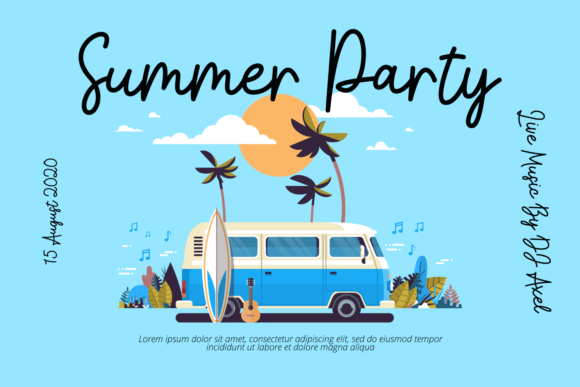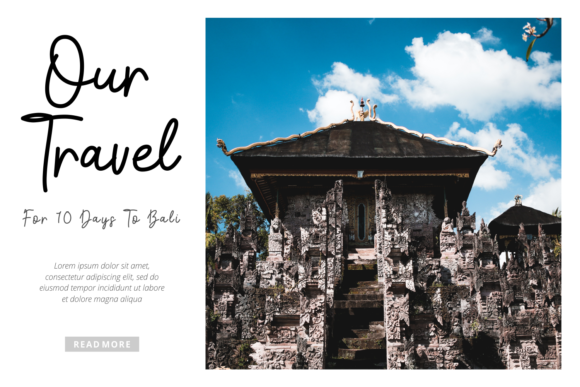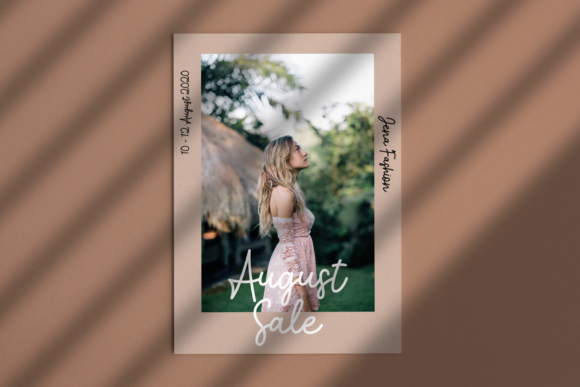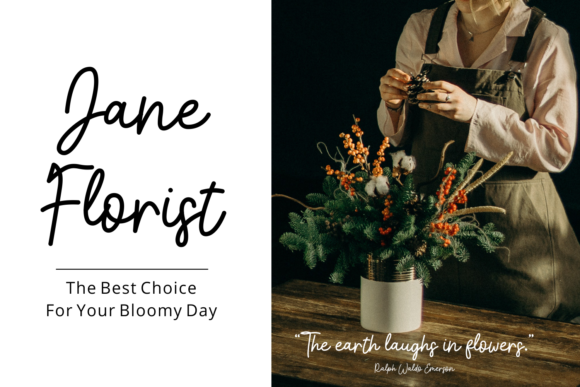
About Romania Font
Romania is a delightful and slightly whimsical handwritten font, designed to steal your heart with its sweet charm. This versatile typeface is a perfect match for an array of creative projects, allowing you to craft stunning invitations, mesmerizing stationary art, captivating social media posts, and an endless stream of delightful designs.
With Romania as your creative companion, invitations become an enchanting affair. Each letter dances with joy, casting a spell of warmth and friendliness. Whether you’re inviting loved ones to a birthday bash, a baby shower, or a dreamy wedding, Romania sets the stage for an event filled with laughter and love.
For stationary art, Romania adds a touch of playfulness to written expressions. Personal notes, thoughtful messages, and heartfelt letters take on a whimsical quality that brightens both the sender’s and receiver’s day. Let the charm of Romania grace your written words and transform them into memorable keepsakes.
On the digital canvas, Romania works its magic to create eye-catching social media posts. From Instagram stories to Pinterest graphics, this font sprinkles your messages with charm, making your content stand out in a sea of feeds. Share positivity and creativity with Romania as your trusty ally.
Brand identities flourish with Romania as their signature font. Whether you’re a boutique, a cafe, or a creative startup, Romania infuses your logo and branding materials with an approachable and friendly essence. Your audience will feel an instant connection, making your brand truly unforgettable.
Romania brings artistic flair to art prints and home decor. From inspirational quotes to whimsical illustrations, this font adds a touch of magic that transforms spaces into galleries of enchantment. Create visual wonders that resonate with the heart and soul.
Packaging and product labels bloom with Romania’s unique style. Whether it’s a handcrafted artisanal product or a line of playful children’s goods, Romania breathes life into packaging, making products irresistibly endearing.
Magazines and brochures come alive with Romania’s charming personality. Whether you’re designing a lifestyle magazine or a travel brochure, Romania’s versatility ensures content leaps off the page with charisma.
In conclusion, Romania is a sweet and slightly quirky handwritten font that brings a dose of charm and versatility to your creative ventures. Embrace its delightful spirit to craft beautiful invitations, enchanting stationary art, captivating social media posts, and a world of other imaginative designs. With Romania as your trusted companion, your projects will bloom with a touch of magic, leaving a lasting impression on all who encounter them. Let Romania lead you on a delightful journey of creativity and watch as your designs blossom into works of art that warm hearts and spread joy.